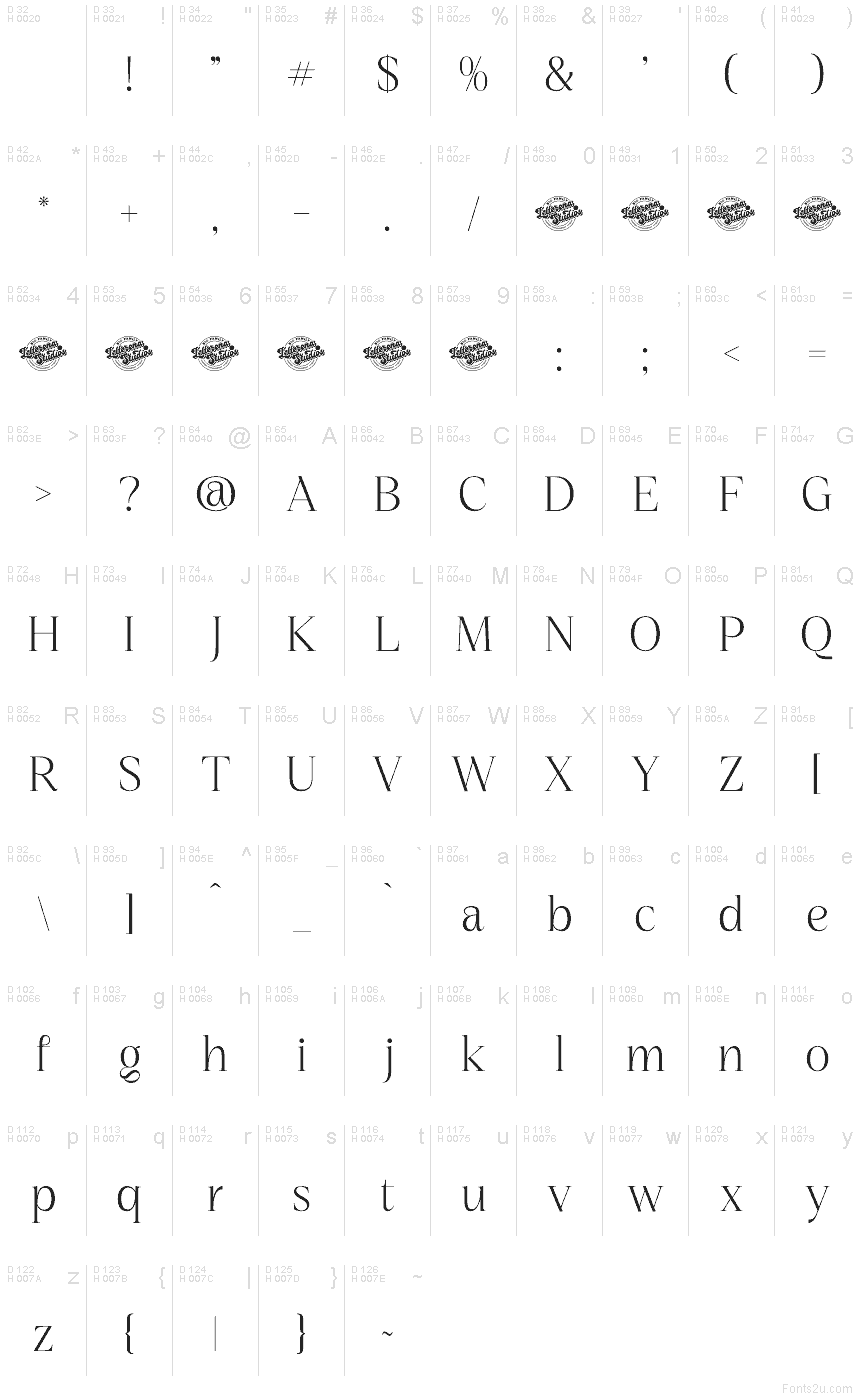
Nagista DEMO VERSION
Nagista font by Letterena Studios is a light, modern serif typeface defined by its elegance and sophistication. It features high contrast and flowing curves that give it unique charm and appeal, making it versatile for various design needs. Its striking character will fully engage your audience's attention and leave a long-lasting impression.
Free to make use of, Nagista font is suitable for branding projects, product packaging designs and labels. It’s ideal in logos in addition to magazine covers and publishing prints. Patrons can also find inspiration using this great looking font in social media posts, ads, posters, invitations and much more!